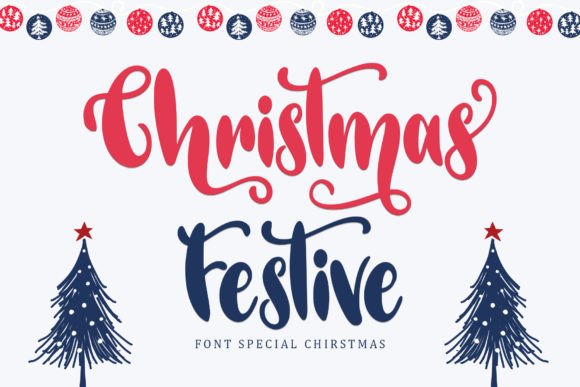
Are you yearning for a font that captures the joyous spirit of Christmas and adds a personal touch to your creative endeavors? Look no further than Christmas Festive, a delightful handwritten script font that will transform your designs into whimsical works of art.
Immerse yourself in the magic of Christmas with this enchanting font, designed to evoke feelings of warmth, nostalgia, and pure merriment. Picture the gentle snowfall on a crisp winter morning, the twinkle of lights illuminating the streets, and the anticipation of presents nestled under the tree. Christmas Festive embodies this festive ambiance, allowing you to spread holiday cheer through your creative projects.
Unleash your creativity and let Christmas Festive guide you in creating personalized cards, invitations, social media posts, and more. Its charming and whimsical style is perfect for adding a festive touch to any project, whether it's a heartfelt message to loved ones or an eye-catching design for your business.
But Christmas Festive isn't just limited to the holiday season. Its versatility extends far beyond the realm of Christmas, making it a valuable addition to your font collection all year round. Create captivating logos, branding materials, website designs, and more with this font's timeless appeal.
With Christmas Festive, you'll have the power to turn ordinary words into works of art, leaving a lasting impression on your audience. Its ability to transform ideas into captivating designs is truly remarkable, making it an indispensable tool for any creative professional.
Join the countless designers and crafters who have embraced the magic of Christmas Festive. Its user-friendly nature makes it accessible to both beginners and experienced users, ensuring that anyone can harness its charm.
Don't let your creative visions be confined by ordinary fonts. Embrace the spirit of Christmas Festive and unlock a world of enchanting possibilities. Let your designs dance with joy and spread happiness wherever they go.